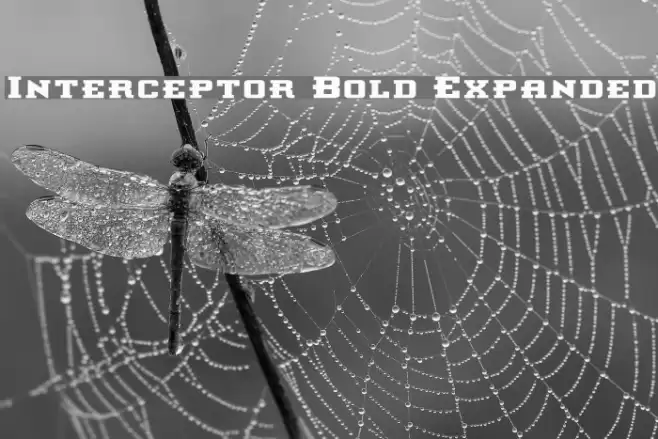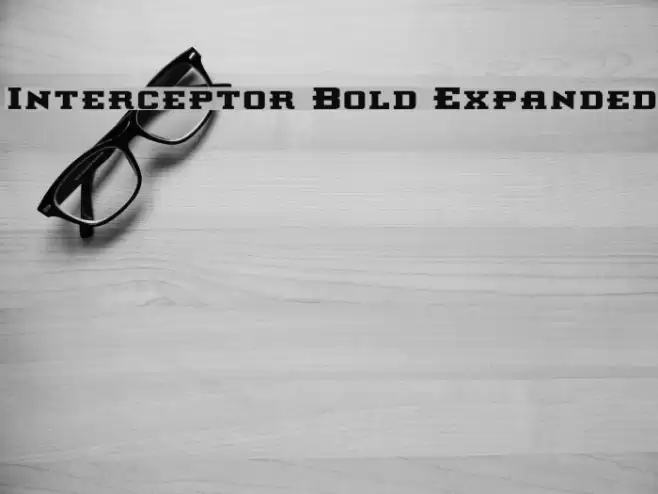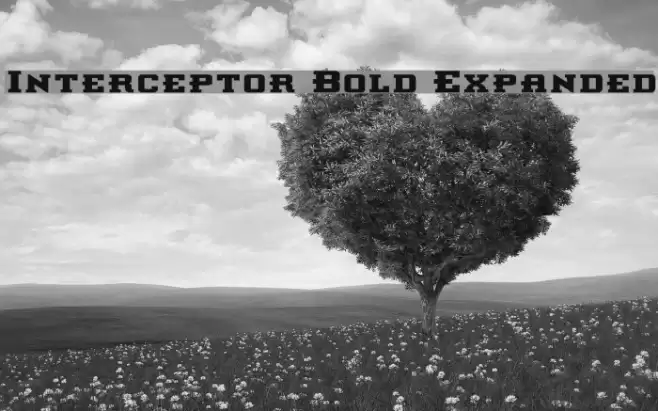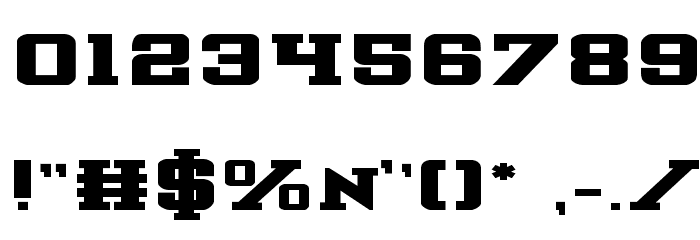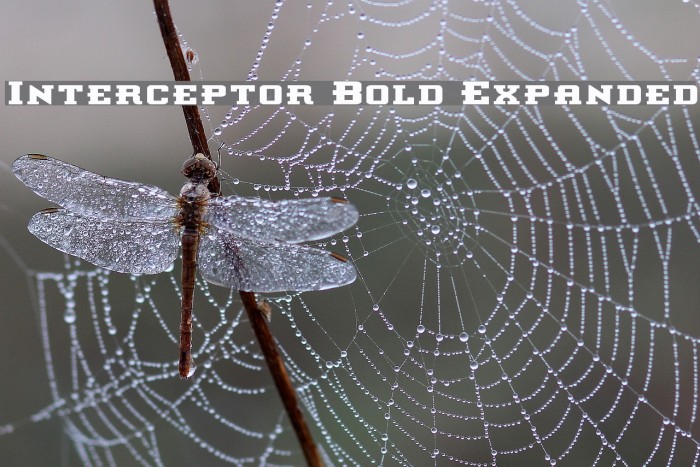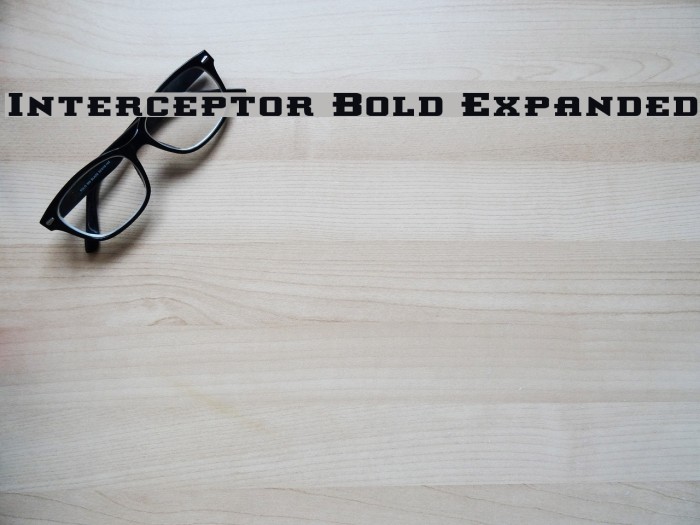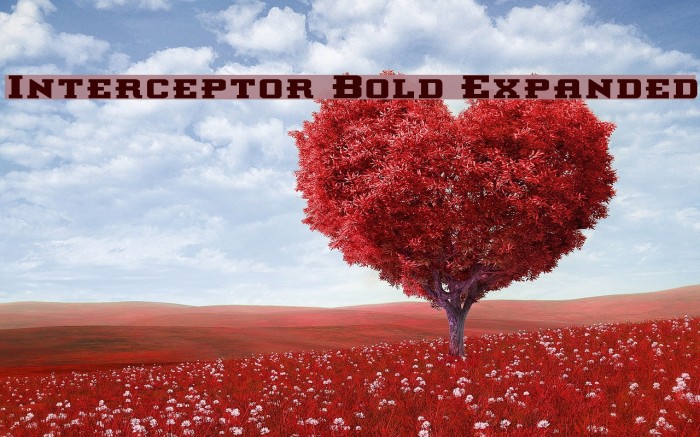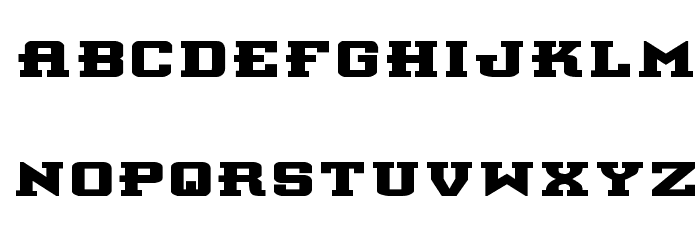
Interceptor Bold Expanded Font
Interceptor Bold Expanded Description
This font features a bold and expanded style with strong, geometric shapes and a robust presence. The characters are designed with a uniform stroke width, giving them a solid and impactful appearance. The uppercase letters are particularly striking, with a blocky and industrial feel that commands attention. The numerals and special characters maintain the same boldness, ensuring consistency across all text elements. This font is ideal for projects that require a strong visual impact and a modern, edgy aesthetic.
A bold, expanded font with geometric shapes and a strong, industrial style from Uncategorized fonts.
- Proposed Projects: Ideal for branding, posters, headlines, and any design needing a bold, impactful look.